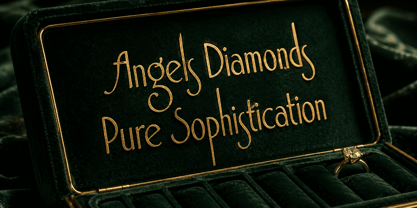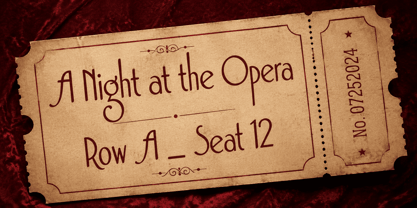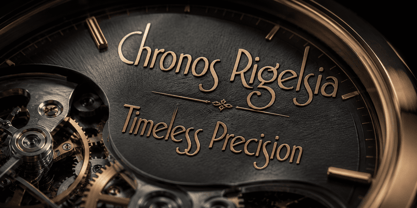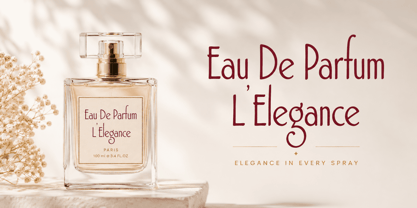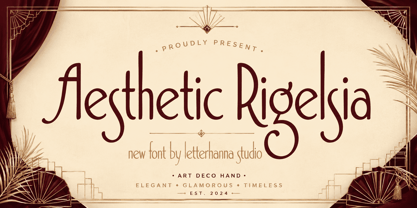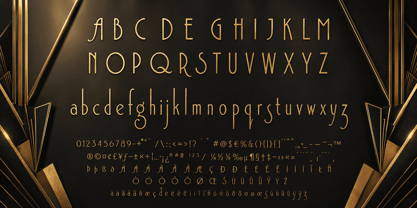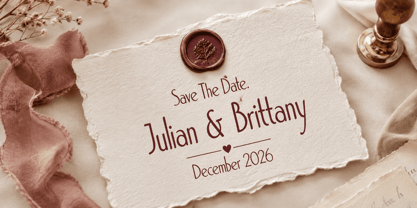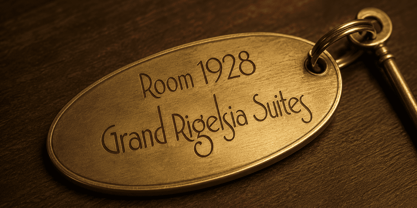
Aesthetic Rigelsia
by Letterhanna Studio
The Aesthetic Rigelsia Font Family was designed by Rinaldo Hasibuan and published by Letterhanna Studio. Aesthetic Rigelsia contains 1 styles. More about this family
Aesthetic Rigelsia is a handcrafted Art Deco typeface inspired by the glamorous visual language of the 1920s. Its dramatically tall vertical strokes and fluid geometric curves give every word an air of elegance, confidence, and timeless luxury. Designed for creatives who refuse to settle for ordinary, this font transforms invitations, logos, branding, packaging, and editorial work into something truly extraordinary. Whether you're building a high-end brand identity or designing a personal project that deserves a touch of vintage grandeur, Aesthetic Rigelsia delivers instant sophistication with every letterform.
Designers: Rinaldo Hasibuan
Foundry: Letterhanna Studio